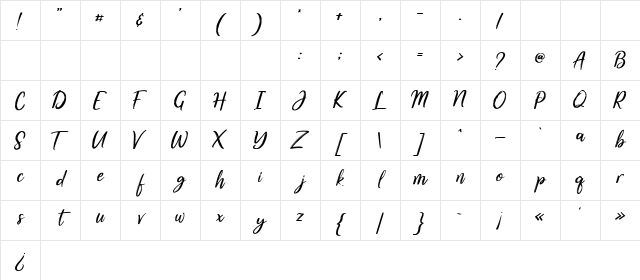
Jenifer is a composed and adaptable typeface that performs quietly and consistently across a wide range of design contexts.
Pro Tip: Use Jenifer in both headline and body roles to test its range before committing to a single application.